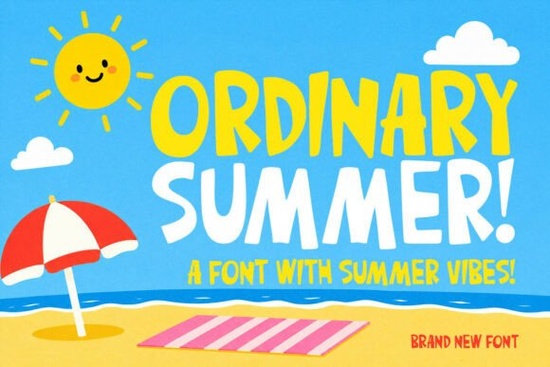
If you're looking for a font that feels like summer bottled up in letterforms, Ordinary Summer might be exactly what your next project needs. It's a hand-drawn script font with a relaxed, playful personality that works beautifully for beach-themed designs, seasonal promotions, and casual branding. The bouncy rhythm and quirky letter shapes give it a spontaneous, youthful look without feeling messy or hard to read.
What Does Ordinary Summer Look Like?
Ordinary Summer has a hand-lettered feel that's loose and fun. The letters aren't perfectly uniform and that's the whole point. They wobble and bounce slightly, mimicking the natural imperfections of real handwriting. This gives your designs a warm, approachable quality that rigid, geometric fonts simply can't match.
The overall vibe is carefree and friendly. Think beach signs, lemonade stand logos, or the kind of lettering you'd see on a surf shop chalkboard. It's casual without being sloppy, and expressive without sacrificing legibility.
Who Is This Font Best For?
This font works well for a pretty wide range of creators:
- Print-on-demand sellers designing summer-themed t-shirts, mugs, and tote bags
- Small business owners creating social media posts, flyers, or packaging for seasonal products
- Crafters and hobbyists making greeting cards, scrapbook pages, or party invitations
- Designers working on branding for lifestyle, travel, or outdoor-focused clients
- Wedding and event planners who want a relaxed, informal look for save-the-dates or signage
If your project calls for something that feels personal and handmade not corporate or stiff this font fits the bill.
How Does It Compare to Other Handwritten Script Fonts?
There are plenty of playful script fonts out there, and it's worth understanding how Ordinary Summer stacks up. If you want something with more elegant, flowing curves, Curlicue Font offers a more ornate script style. For projects that need a sweet, feminine touch, Darling Charm Font leans into that direction.
If you're after something with a sportier, more energetic feel, Baseball Handwriting Font brings a different kind of casual energy. And for designs that need a clean, modern script with some movement, Longmile Font is worth a look.
Ordinary Summer sits in its own lane. It's not trying to be elegant or edgy. It's just genuinely relaxed like a pair of flip-flops compared to sneakers or dress shoes. Different occasions call for different things.
What Projects Work Well With This Font?
Here are some specific ways creators are using fonts like Ordinary Summer:
- T-shirt designs with phrases like "Good Vibes," "Endless Summer," or "Sunshine State of Mind"
- Social media graphics for summer sales, beach events, or seasonal menu announcements
- Greeting cards for birthdays, thank-you notes, or summer party invitations
- Website headers for blogs focused on travel, lifestyle, or outdoor activities
- Packaging and labels for products like sunscreen, candles, or artisan food items
- Wall art prints with motivational or beach-inspired quotes
It pairs nicely with simple sans-serif fonts for body text. Use Ordinary Summer for headlines and let a clean font like Friends Font handle longer text blocks for a balanced layout.
Practical Tips for Using Hand-Drawn Fonts Like This
A few things to keep in mind when working with fonts like Ordinary Summer:
- Size matters. Hand-drawn fonts usually look best at larger sizes. Small text can lose the charm of those quirky letterforms.
- Give it room to breathe. Generous letter spacing and line height make bouncy scripts easier to read.
- Limit your font pairing. One script plus one clean sans-serif is usually plenty. Adding a third font often creates visual noise.
- Test at actual size. What looks great on a big screen might not read well on a small mug or thumbnail. Always preview your design at the size it'll actually be printed or displayed.
Quick Checklist Before You Buy
- Does the font's style match your project's mood and audience?
- Did you test it at the size you'll actually use it?
- Do you have a good pairing font for body text?
- Are there enough glyphs and characters for your needs?
If you're working on summer-themed projects and want a font that looks hand-lettered without the hassle of actually hand-lettering, Ordinary Summer is a solid choice worth trying out.